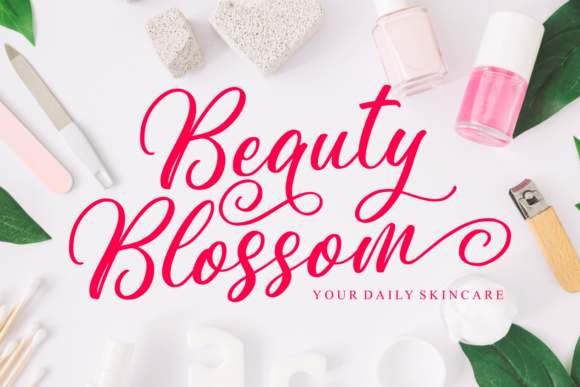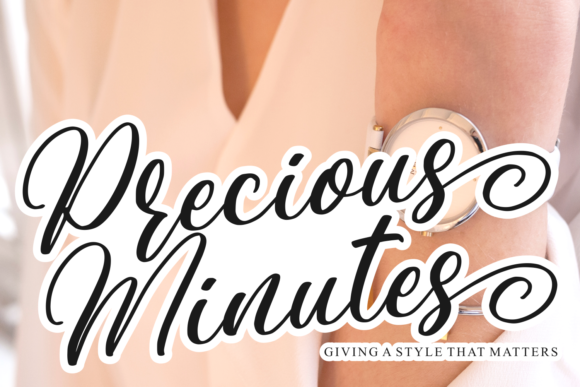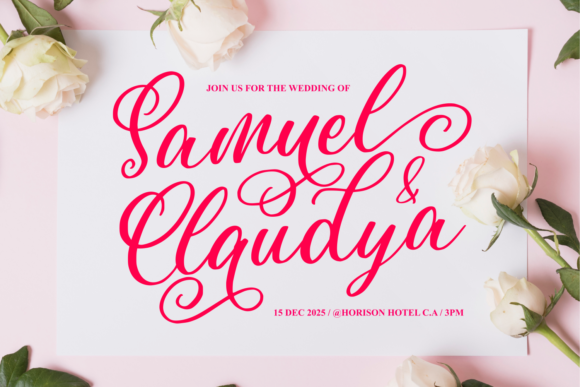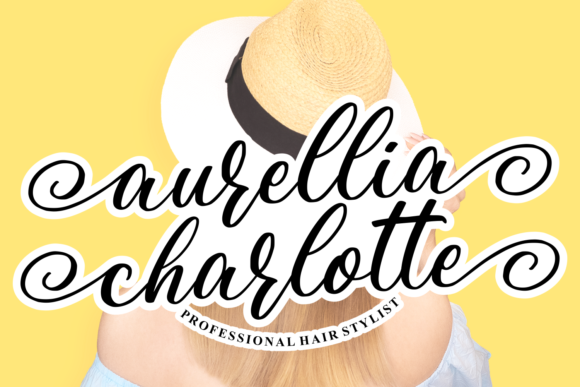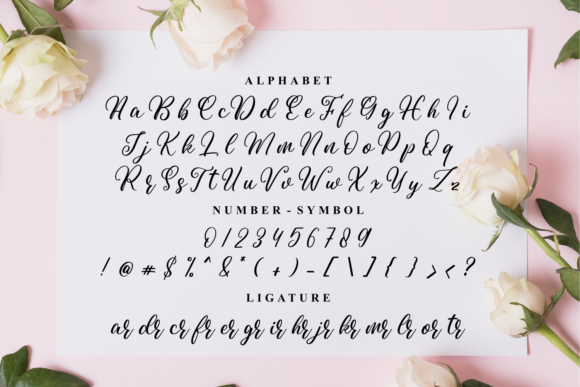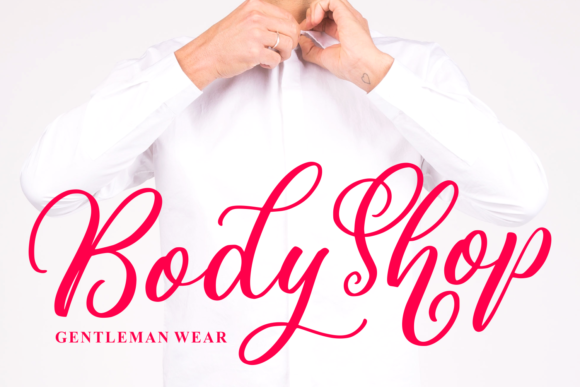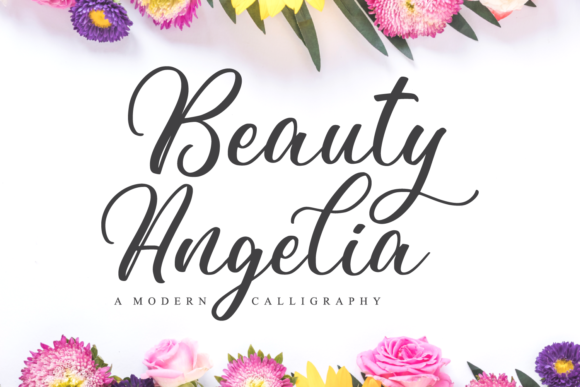
Introducing Beauty Angelia Font: Elevate Your Designs with Elegance
In the world of typography, a font can make or break the aesthetic of a design. For crafty enthusiasts and professional designers alike, finding the perfect font that combines elegance with a touch of whimsy can be a challenge. This is where Beauty Angelia Font steps in, offering a sophisticated yet delicate solution for a wide range of creative projects.
The Charm of Beauty Angelia
Beauty Angelia is an elegant and dainty handwritten font that features sweet and delicate swashes, setting it apart from more conventional typefaces. Its original look is designed to appeal to a broad spectrum of crafty ideas, from DIY crafts and stationery to professional branding and digital content. Whether you’re working on a wedding invitation, a blog, or a product label, Beauty Angelia brings a touch of sophistication and charm.
One of the standout features of Beauty Angelia is its PUA (Private Use Area) encoding. This means that accessing all of the glyphs and swashes is incredibly straightforward. PUA encoding allows designers to easily access and use the extended characters of a font, making it simpler to incorporate the beautiful swashes and glyphs that Beauty Angelia has to offer into their designs. This feature is especially beneficial for those who want to add a personal touch to their work without the hassle of complicated font management.
Versatility for Various Projects
The versatility of Beauty Angelia makes it an excellent choice for a multitude of projects. Here are a few ideas where this font can truly shine:
- Wedding and Event Stationery: The elegant swashes and delicate lettering are perfect for wedding invitations, save-the-date cards, and other event-related materials.
- Branding and Packaging: For businesses looking to establish a brand identity that exudes elegance and sophistication, Beauty Angelia can be used for logos, product labels, and packaging.
- Digital Content: Bloggers and content creators can use Beauty Angelia to add a touch of personality to their website headers, social media graphics, and blog posts.
- DIY Crafts: Crafters can incorporate Beauty Angelia into their handmade projects, such as scrapbooking, card making, and other paper crafts.
Why Choose Beauty Angelia?
With so many fonts available, why should Beauty Angelia be your go-to choice? Here are a few reasons:
- Unique Aesthetic: Beauty Angelia offers a unique blend of elegance and playfulness, making it stand out from more generic fonts.
- Ease of Use: Thanks to PUA encoding, using the font and accessing its features is hassle-free.
- Versatility: Its adaptability to various projects and themes makes it a valuable addition to any designer’s toolkit.
Beauty Angelia Font is a beautiful addition to the world of typography, offering designers and crafty enthusiasts a chance to elevate their projects with its elegant and dainty handwritten style. With its sweet and delicate swashes, PUA encoding for easy access, and versatility across a range of projects, Beauty Angelia is poised to become a favorite among those looking to add a touch of sophistication and charm to their designs. Whether you’re a professional designer or a DIY enthusiast, Beauty Angelia is a font that can help bring your creative visions to life.